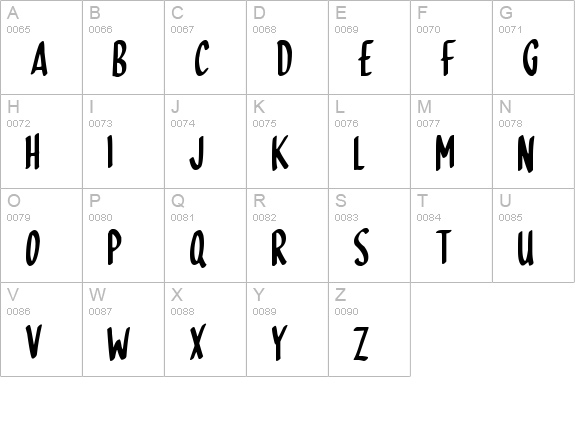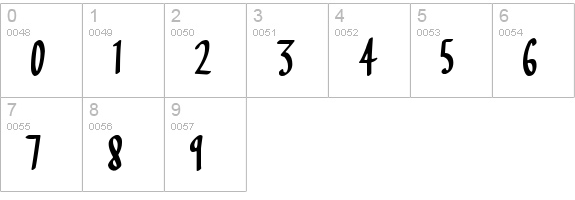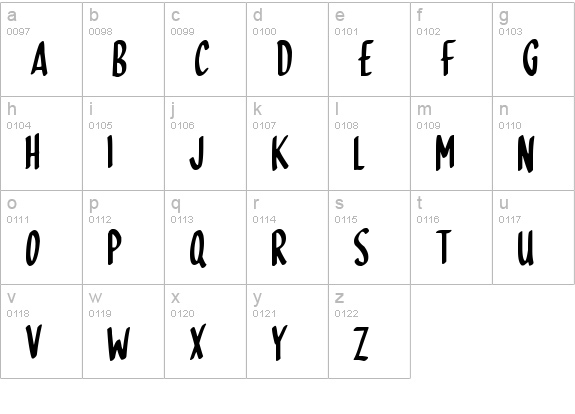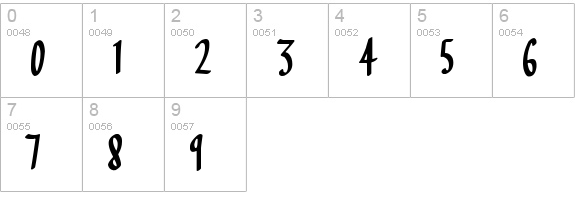
Skinny Dipping is a free for personal use font in the Script > Handwritten category, designed by Darrell Flood. It has been downloaded 124 times and is available for Windows, Mac and Linux.
Introducing Skinny Dipping font, a whimsical and playful typeface that exudes a sense of carefree adventure. With its flowing lines and charming curves, Skinny Dipping captures the essence of spontaneity and fun. This font is perfect for projects that require a touch of lightheartedness and a dash of creativity.
Whether you're designing invitations, greeting cards, or social media graphics, Skinny Dipping will add a cheerful and refreshing vibe to your work. Embrace the spirit of freedom and joy with this delightful font that invites you to dive into a world of endless possibilities.